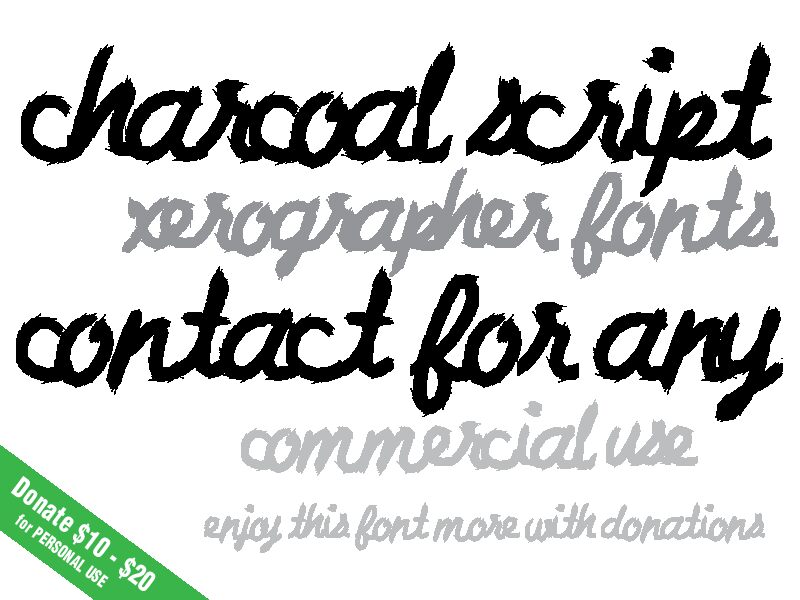
Charcoal Script from Xerographer Fonts is a free distressed script font. Its connected letters move in a quick, uneven sweep, with long loops and sudden changes in stroke width. Dry, torn edges give the writing a convincingly scuffed surface.
Independent fashion labels can use its raw signature style for branding and packaging. It also suits album covers and gig posters. Across those settings, the abrasive texture links personal handwriting with underground print graphics.